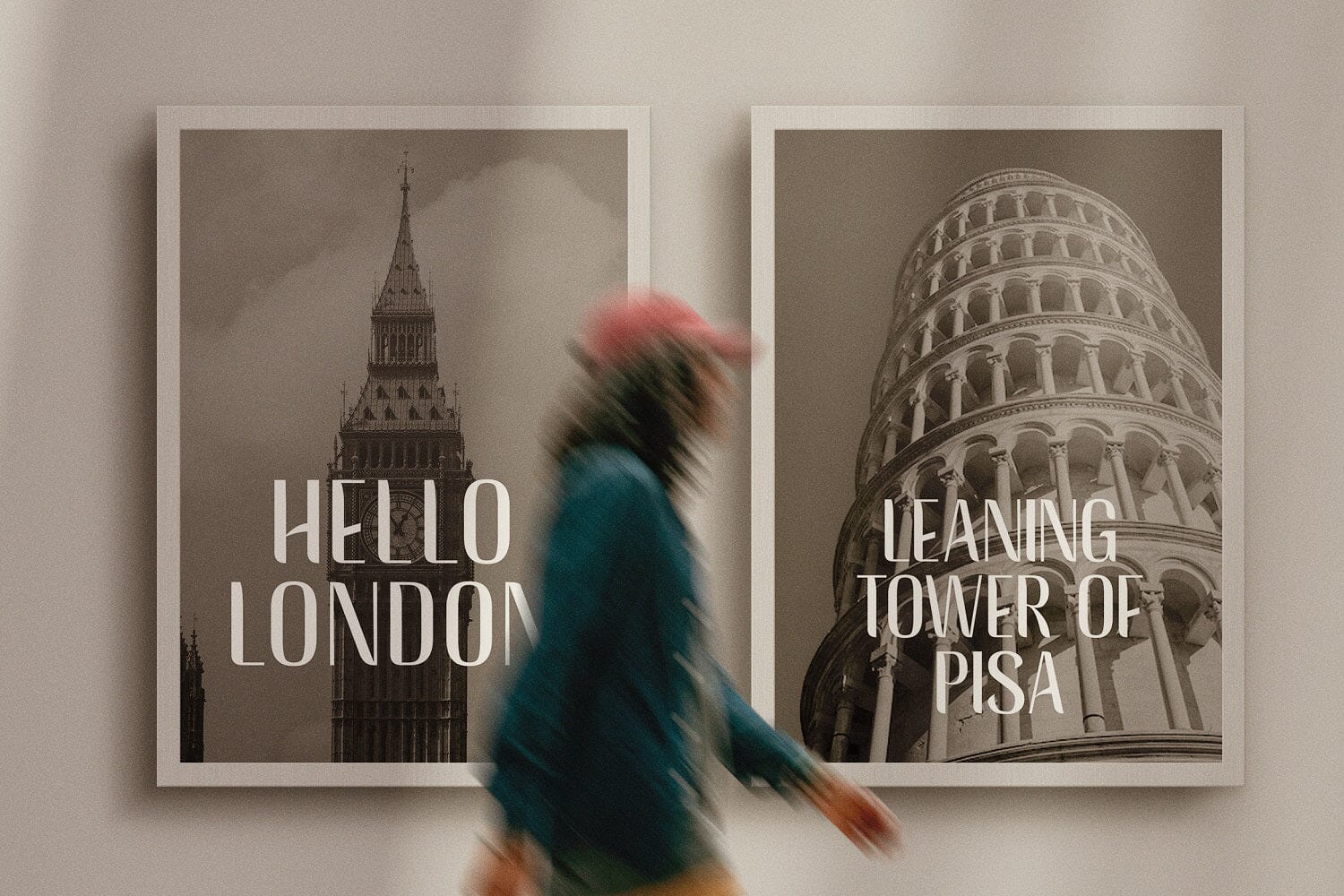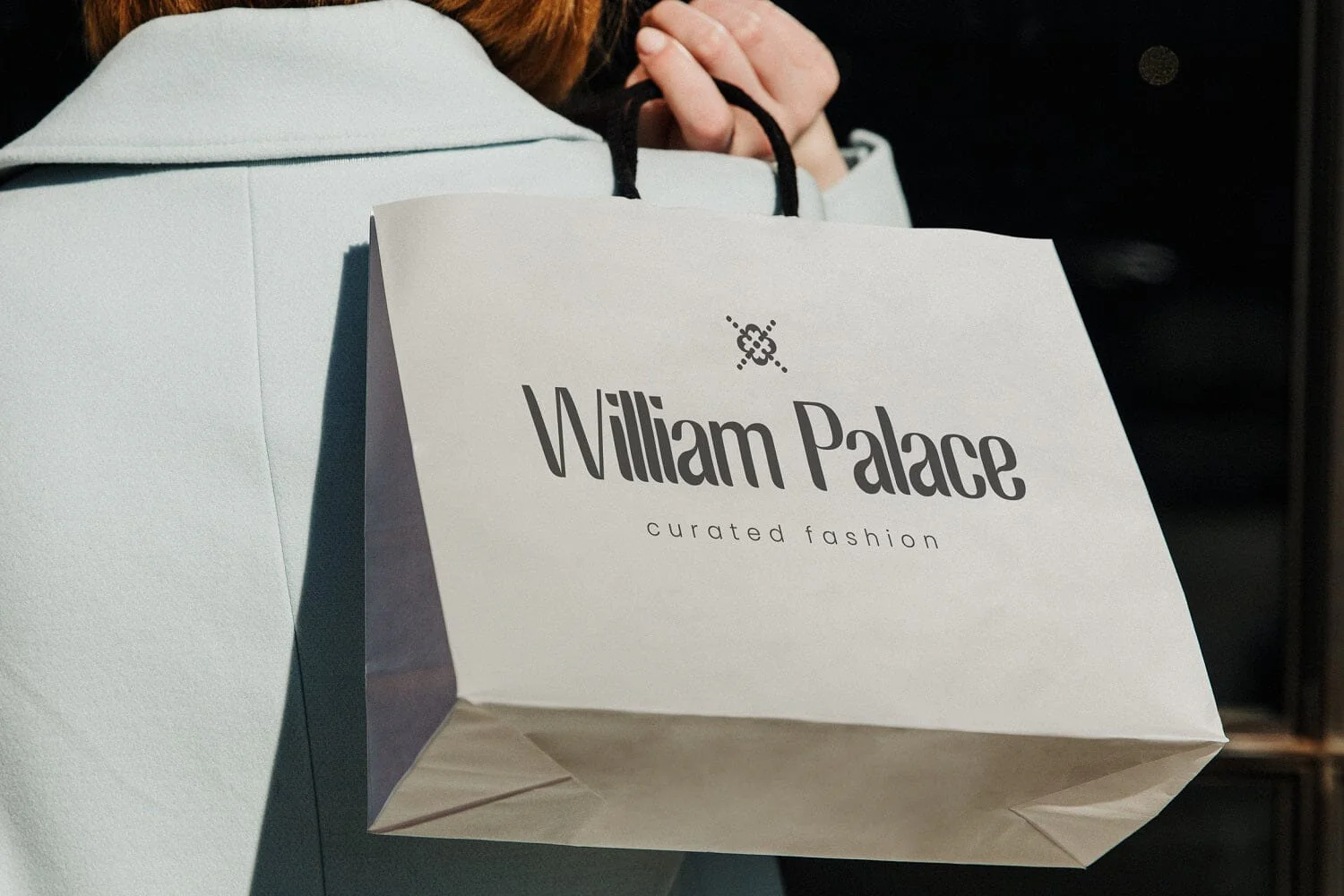
BAGREK DISPLAY - Sans Serif Font
Introducing BAGREK DISPLAY - Sans Serif Font
BAGREK DISPLAY is a sweet playful display sans serif font with elegant style. Add this display font to each of your creative ideas and notice how it makes them stand out. Fall in love with its dynamic charm, and make this fancy display part of your craft library now. Ā